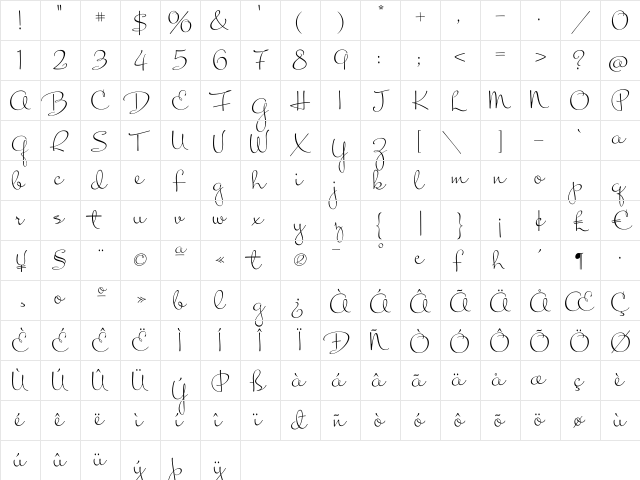
Mrs Blackfort is a composed and adaptable typeface that performs quietly and consistently across a wide range of design contexts.
Who designed the Mrs Blackfort Regular font?
This font was published by SUDTIPOS. Expanded and digitized from the Bluemlein Script collection by Alejandro Paul. Check the technical specs section for copyright and designer details.